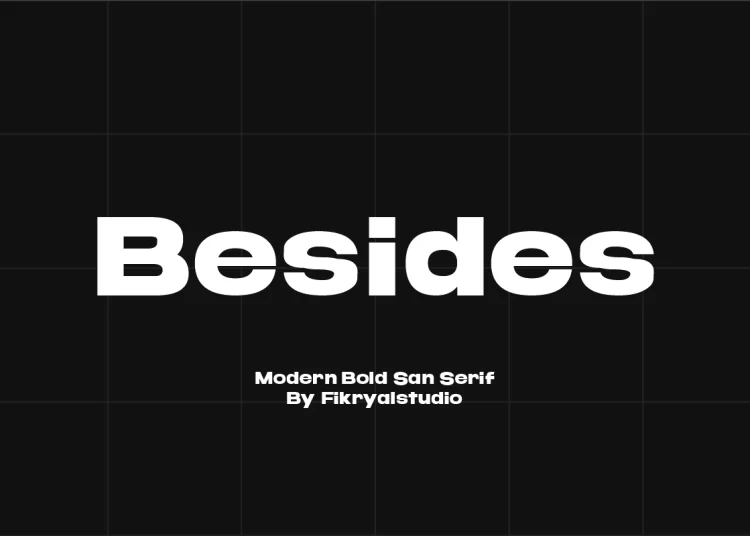
Besides Font
Besides is a contemporary, hookless sans-serif font that stands out for its clarity and boldness. With its clean, striking characters, Besides is perfect for creating strong, eye-catching design ideas. The modern aesthetic of this font makes it an excellent choice for logos, titles, and any design elements where visual impact is key.